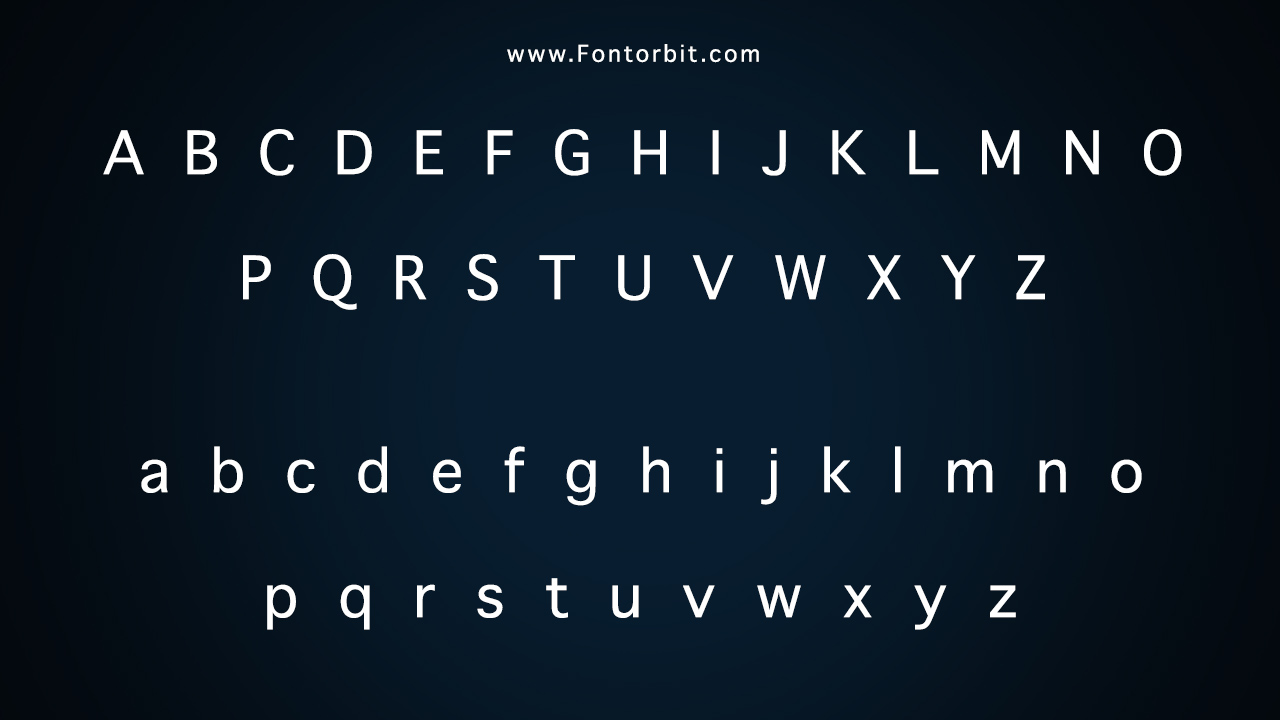
Geneva is a popular sans-serif typeface originally designed by Susan Kare and published by Apple Inc. in 1984. It became famous as part of the Macintosh operating system.
Its clean, simple design made it a favorite for digital interfaces, giving it a timeless appeal. The Geneva font is part of the sans-serif family, known for its crisp readability on screens.
Geneva Font Family Includes
The Geneva typeface is notable for its simplicity and legibility, especially on digital screens. This font family is clean and designed for versatility, which is why it has been popular in the tech industry. The Geneva font family includes the following styles:
Notable Uses Of Geneva Font
Geneva has been widely used across a variety of platforms, especially in early Apple products. Some of its notable applications include:
- Apple Macintosh interfaces
- Digital design projects
- Education materials
Geneva is ideal for use in digital projects where readability is paramount. Its clean lines make it well-suited for the following:
- User Interfaces (UIs)
- Website headings and body text
- Educational materials and e-learning platforms
- Tech product branding and documentation
- Presentation slides
Because of its timeless design, Geneva works well in modern applications, particularly in situations requiring clear, readable text on screen.
If you’re looking for alternatives to Geneva, several free sans-serif fonts offer similar readability and design:
These fonts offer a comparable look and feel, making them good substitutes for Geneva, particularly in digital interfaces.
Geneva remains an iconic typeface that reflects the early digital era while maintaining its relevance. Its design is optimized for screen usage, making it a favourite among designers and developers. Geneva is a great choice if you’re working on a digital project and need a reliable, clean sans-serif font.
1.Is Geneva Still Used In Modern Design?
Yes, Geneva is still used in modern design, particularly in digital interfaces and web design.
3.What Is Geneva Most Known For?
Geneva is most known for being one of the original fonts in the Macintosh operating system.
4.Is Geneva A Web-Safe Font?
Geneva is commonly included in system fonts, making it web-safe on many platforms.
5.What Are Similar Fonts To Geneva?
Similar fonts include Arial, Helvetica, and Roboto.
6.Why Was Geneva Named After The City?
The font was named after Geneva, Switzerland, to follow Apple’s practice of naming fonts after world cities.
7.Can I Use Geneva In Print Projects?
Yes, although Geneva is optimized for digital use, it can also be used in print designs.